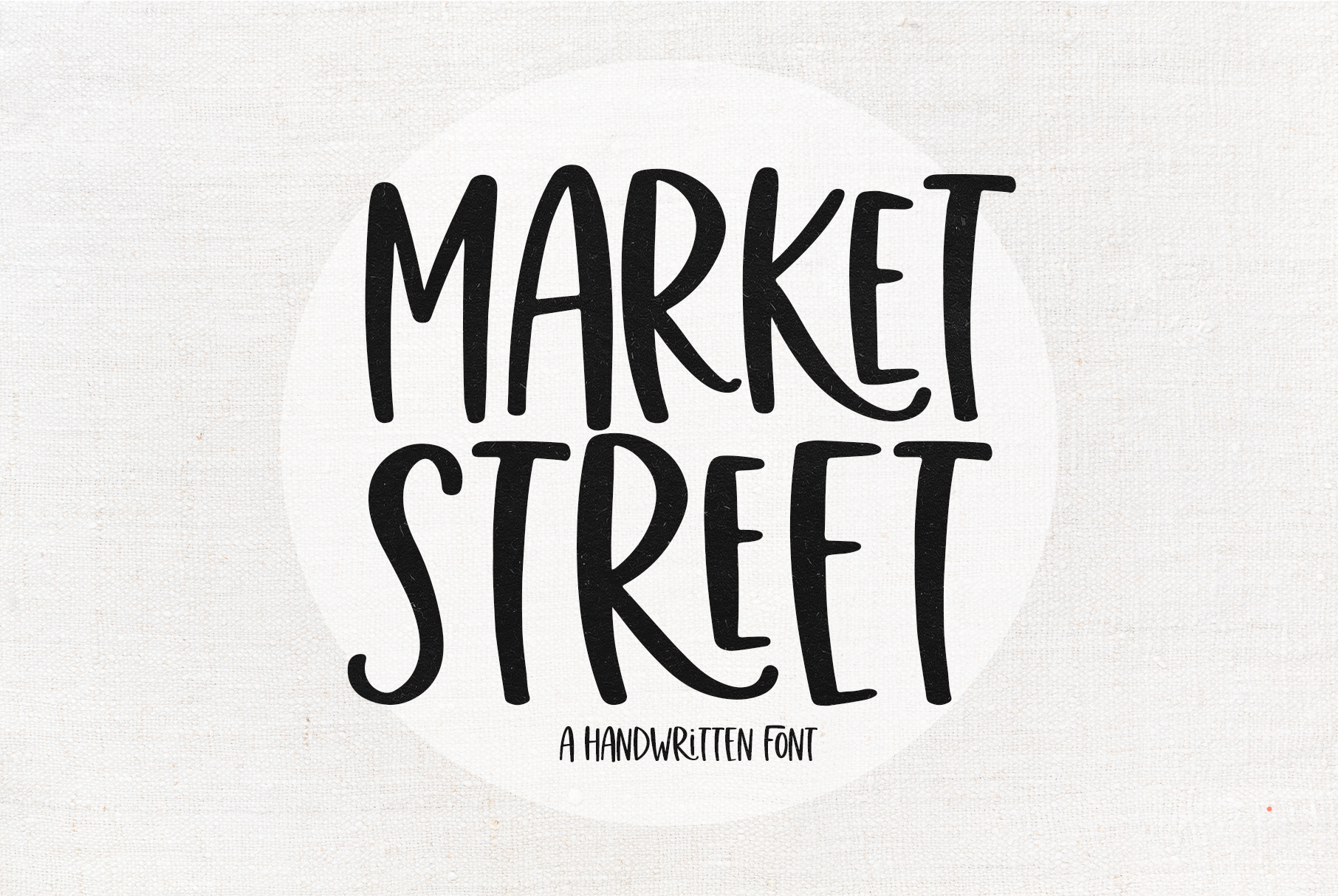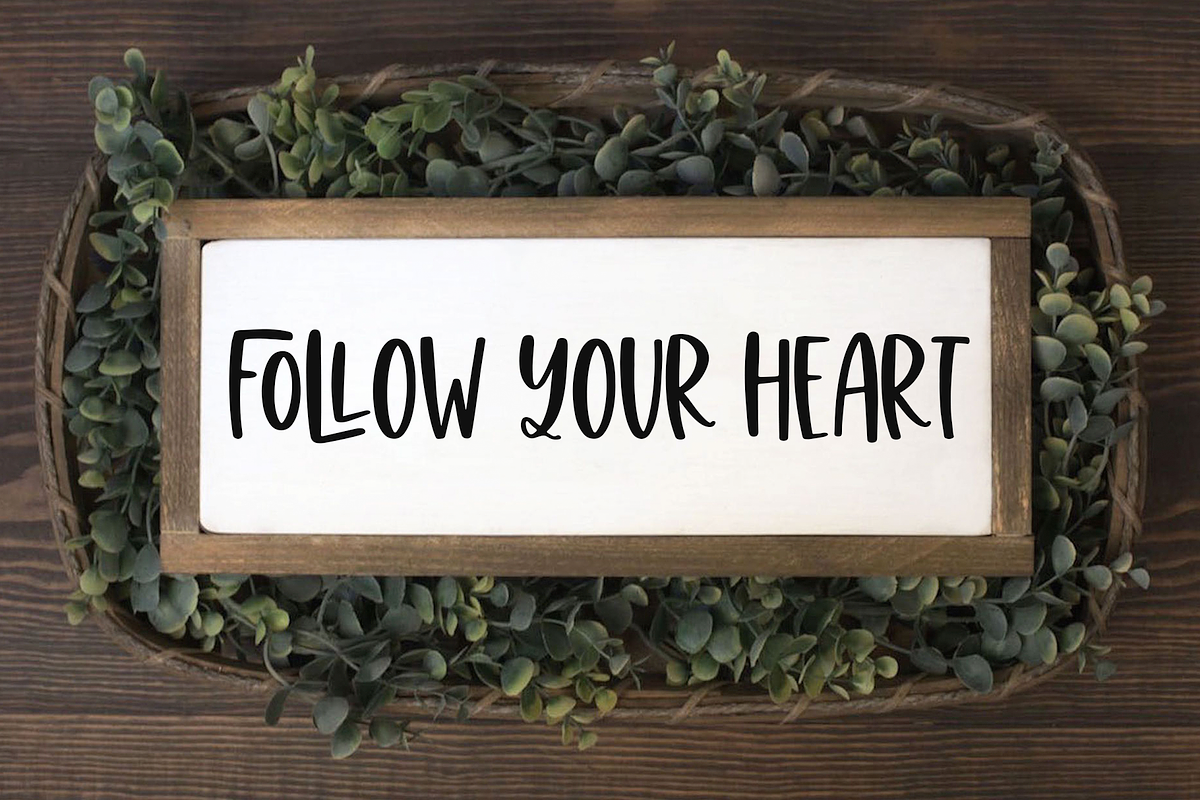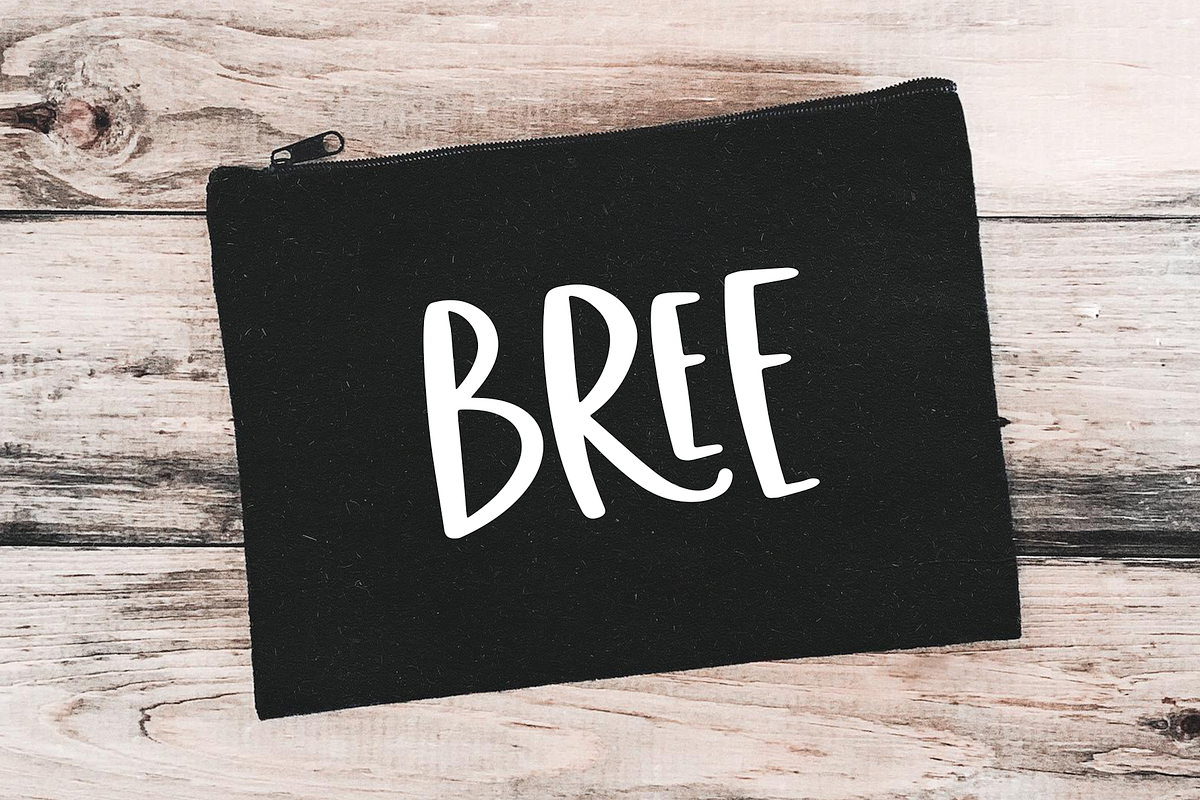
Market Street | Fun Handwritten Font
Market Street is a fun handwritten font.
This font is perfect for your branding, craft projects, instagram, social media, quotes, signs, farmhouse decor, logos, svg designs and more!